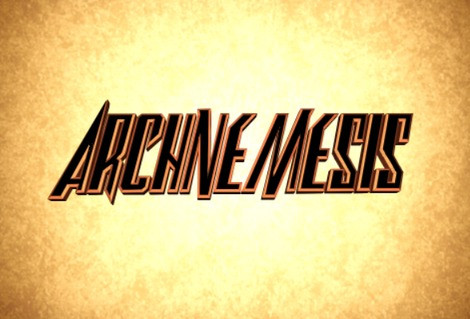
Archnemesis Font Family
Archnemesis Font Family is a simple and modern display font suitable for quotes, logos, headings, titles, and many more. Use it on any of your creative projects, and your designs will become outstanding!